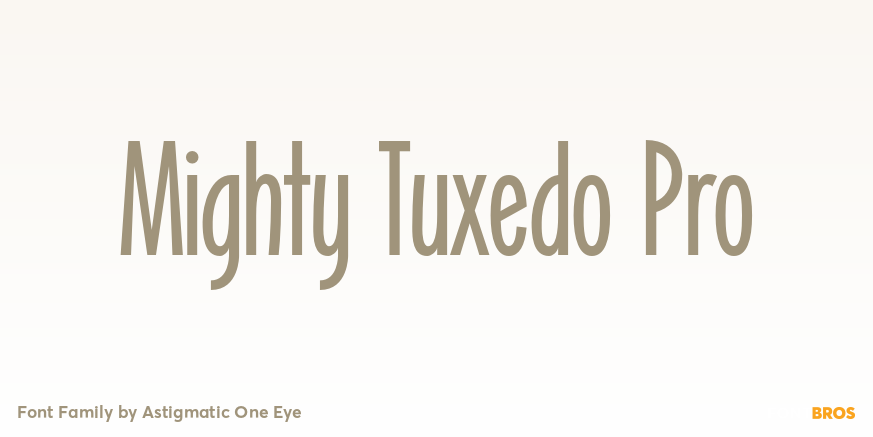
Mighty Tuxedo Pro
About Mighty Tuxedo Pro
Inspired by 1930\’s Art Deco lettering styles, the Mighty Tuxedo font family comes complete with a Regular, and all caps Luxe version, to give it an impressive range of flexibility & flair. The new OpenType version includes: expanded language character…